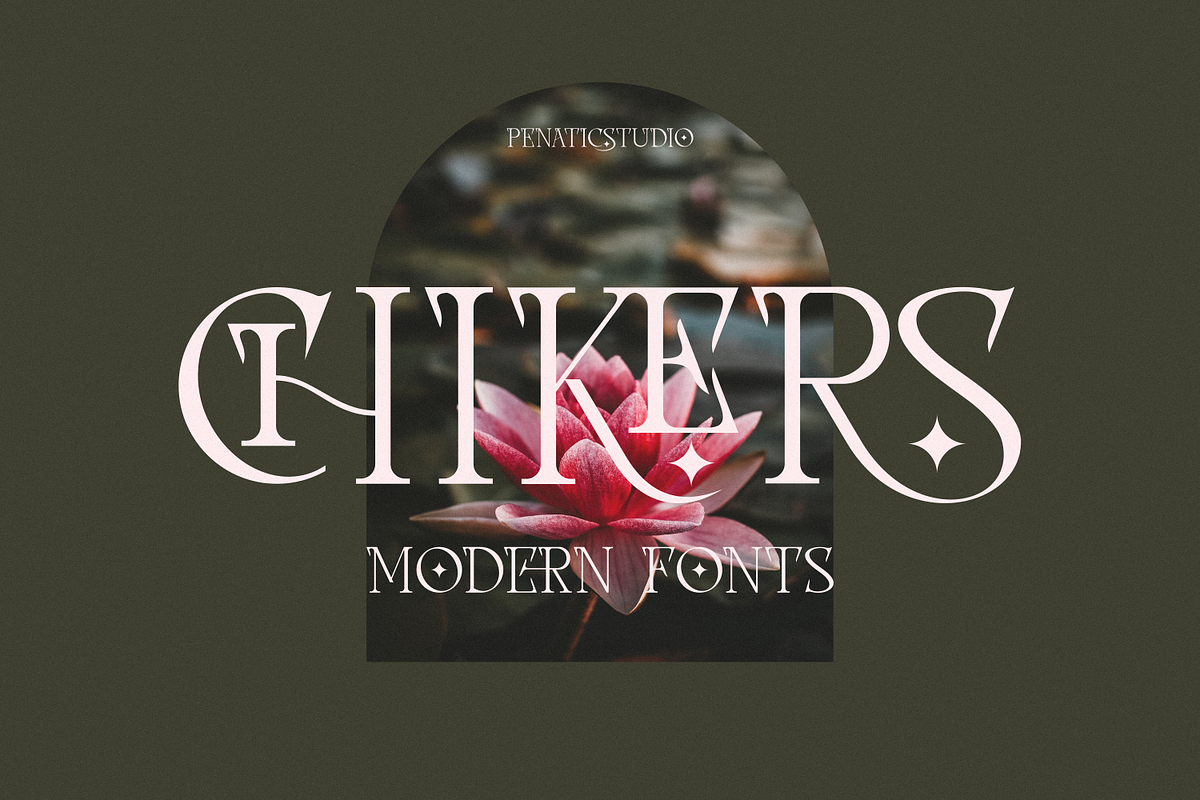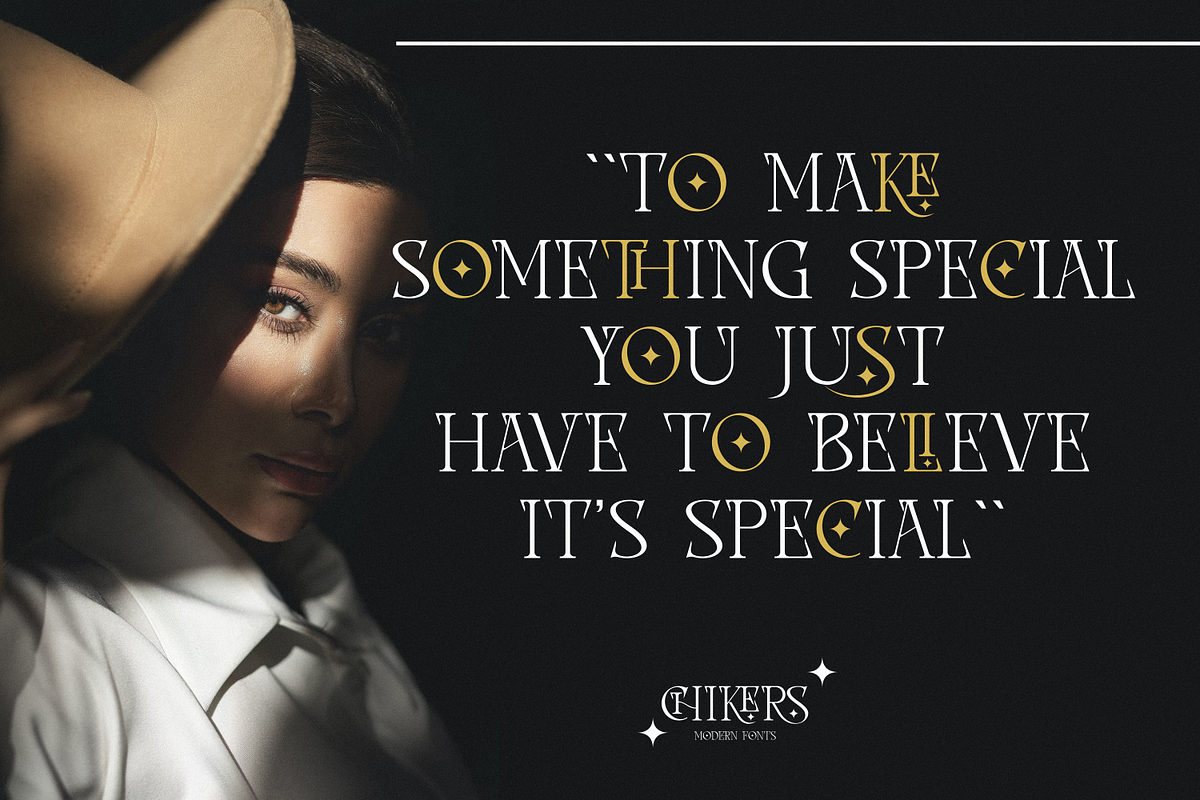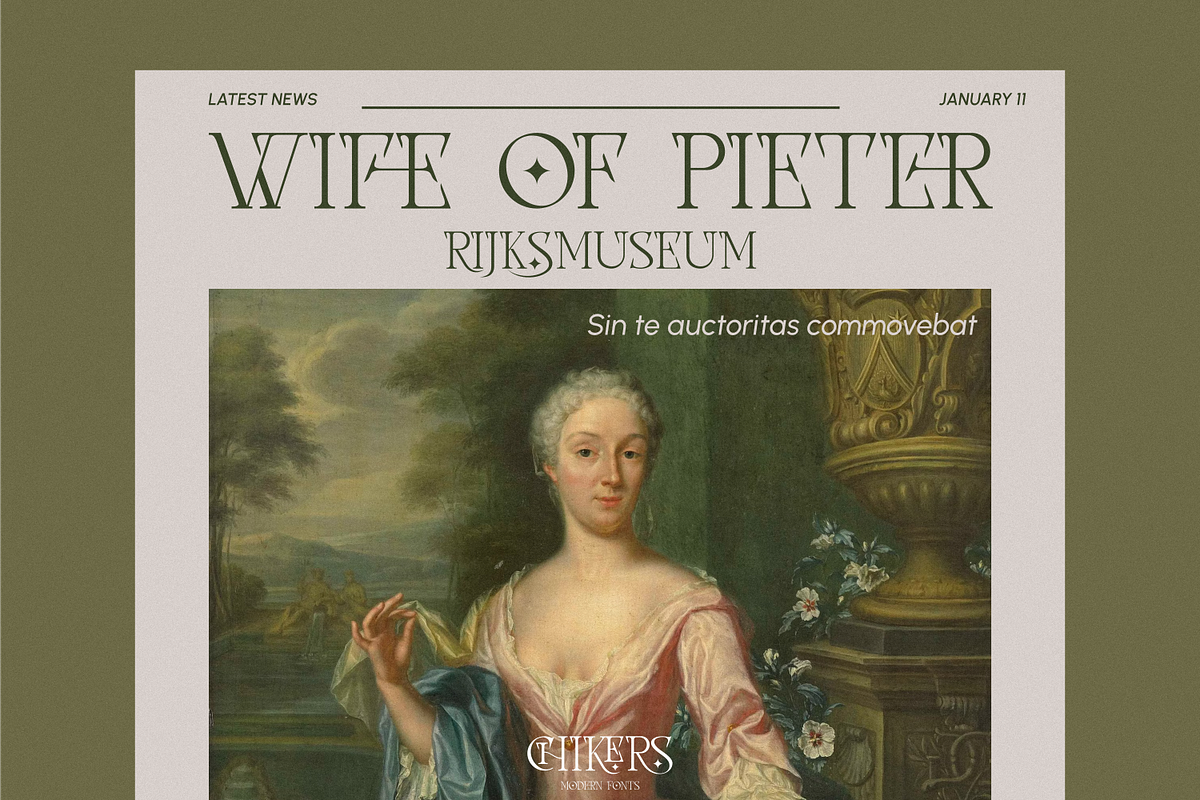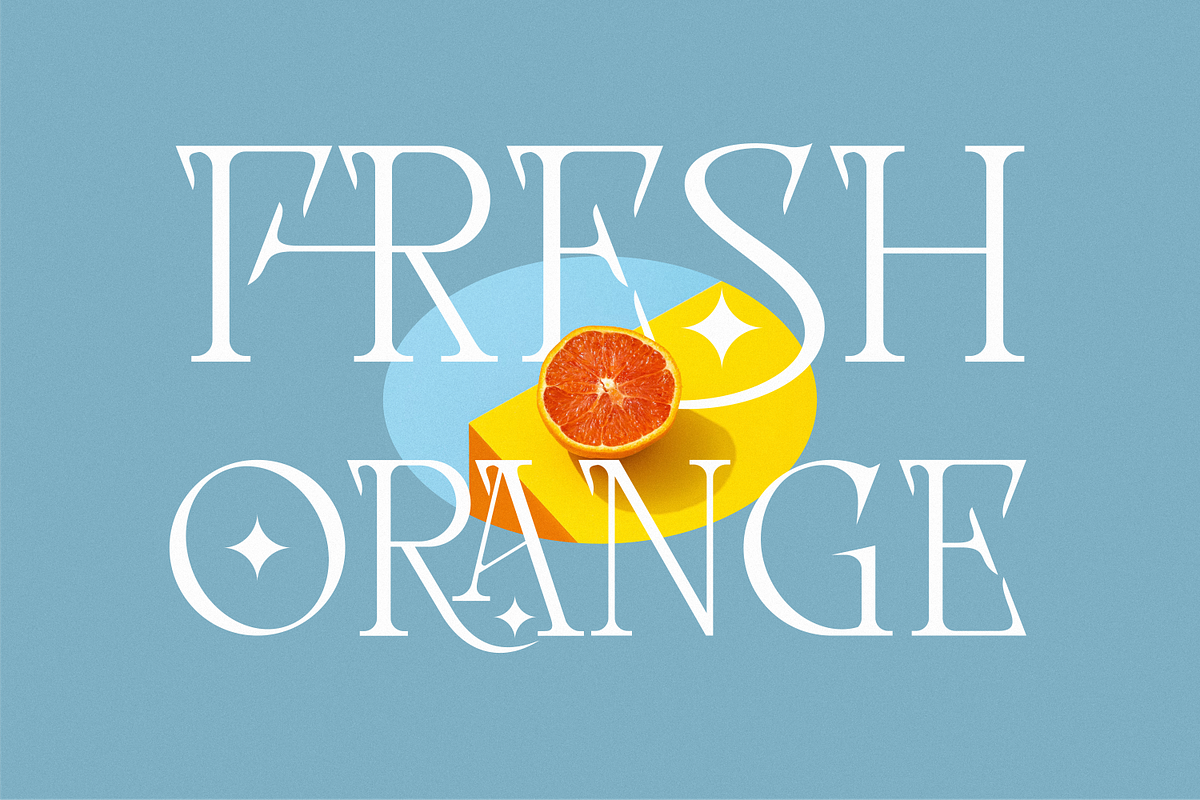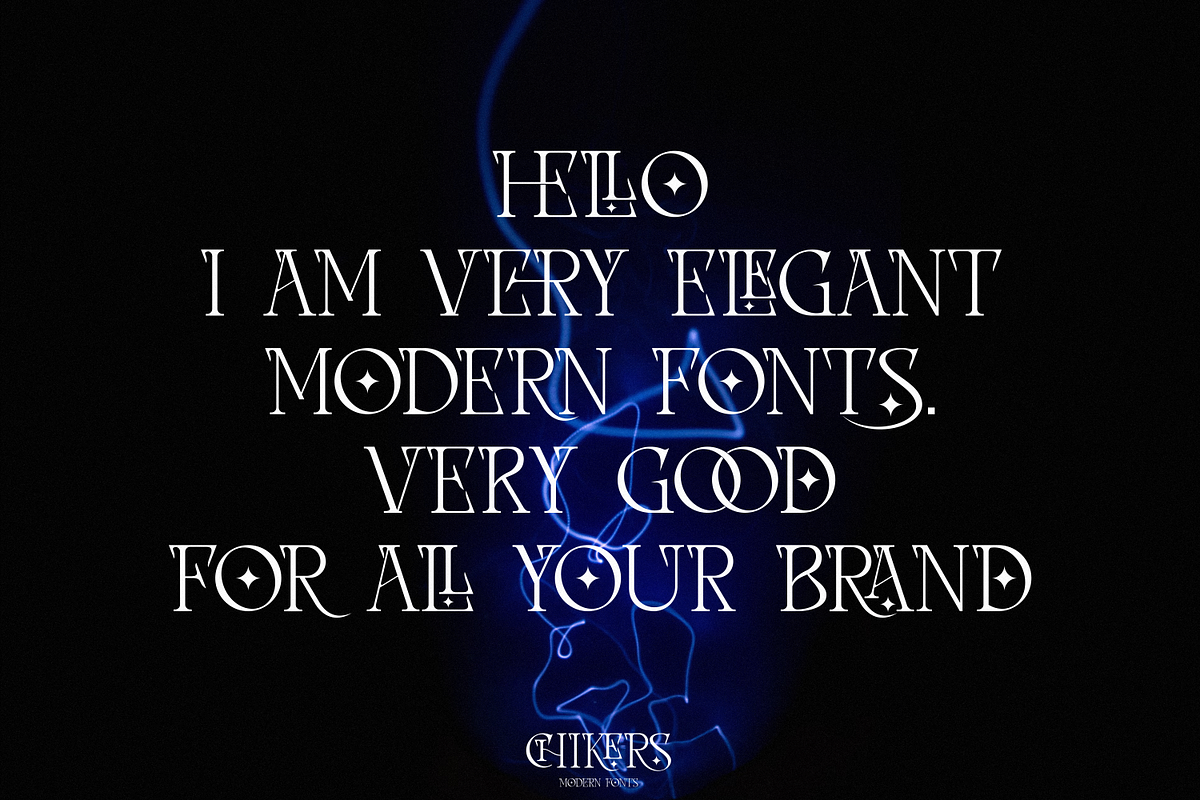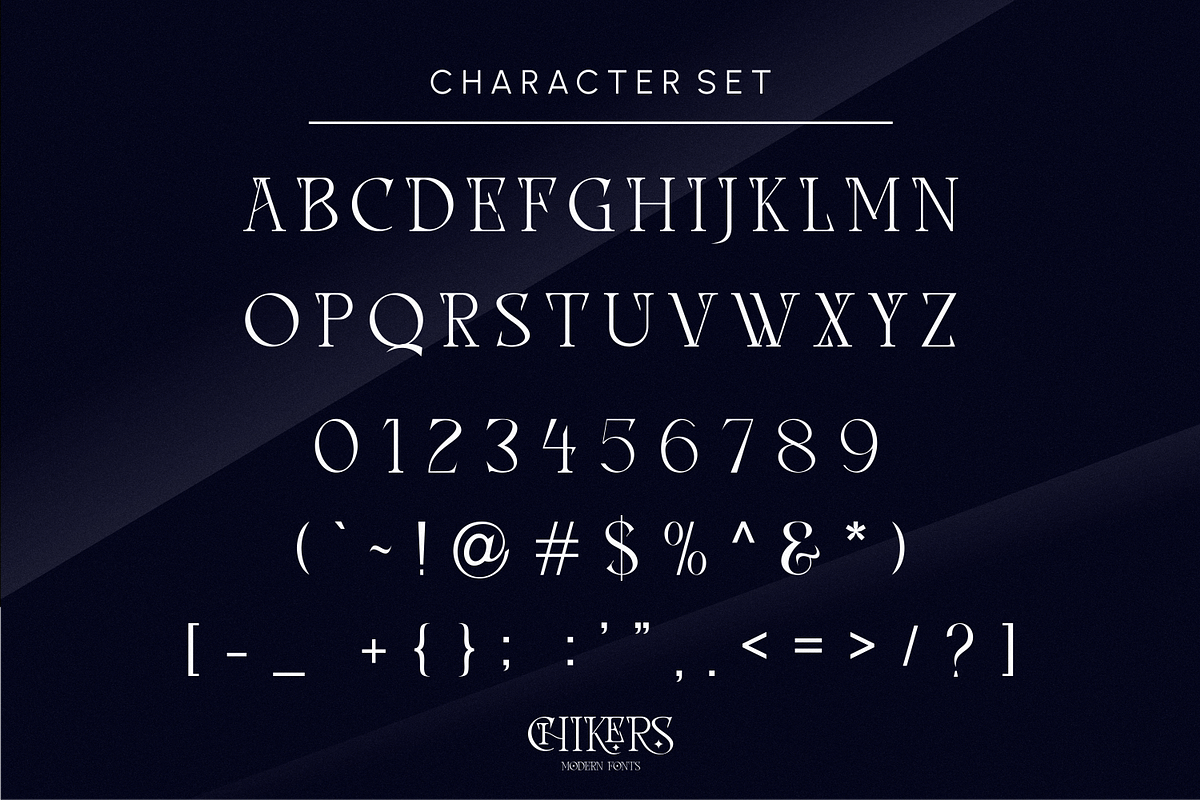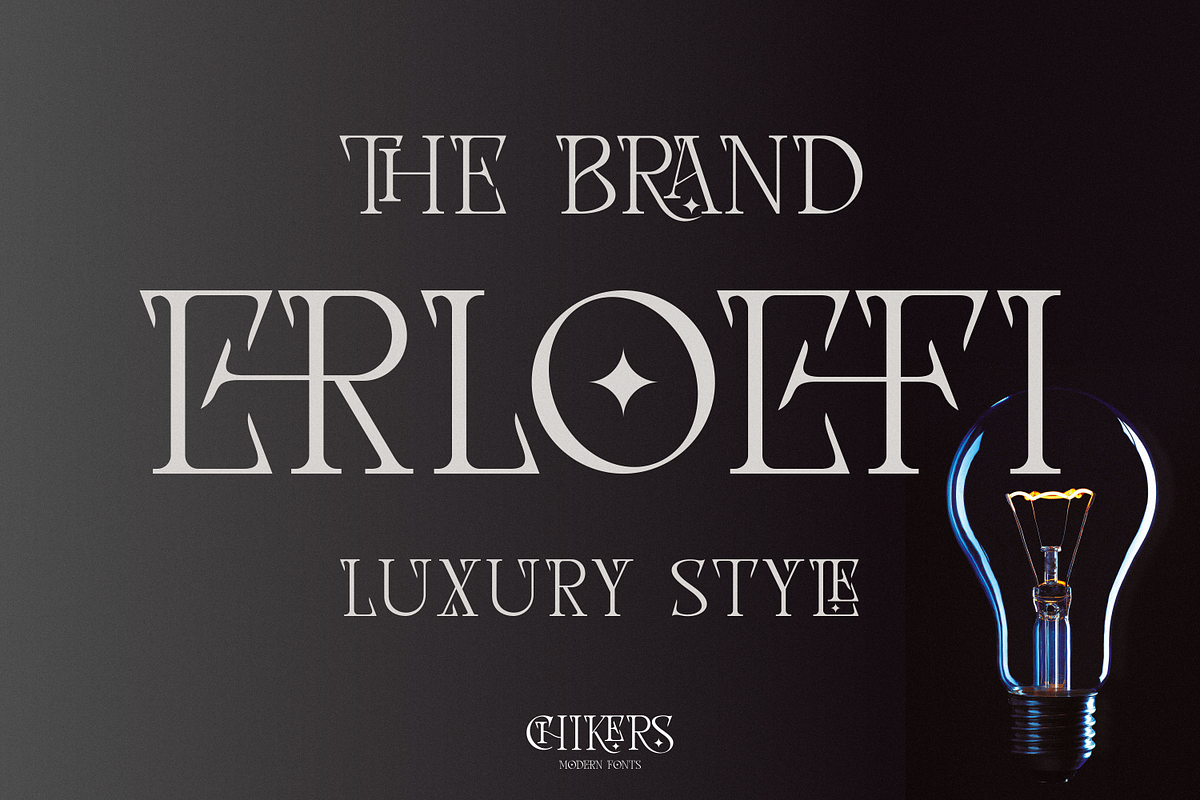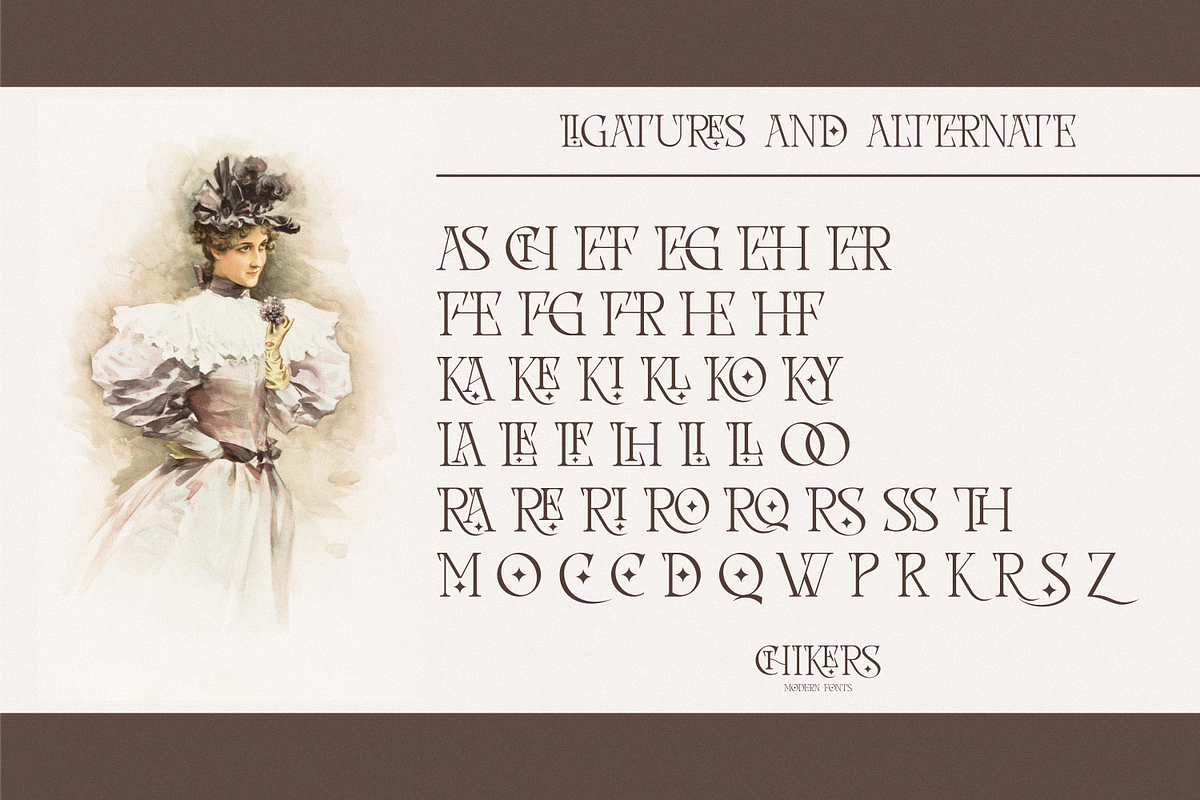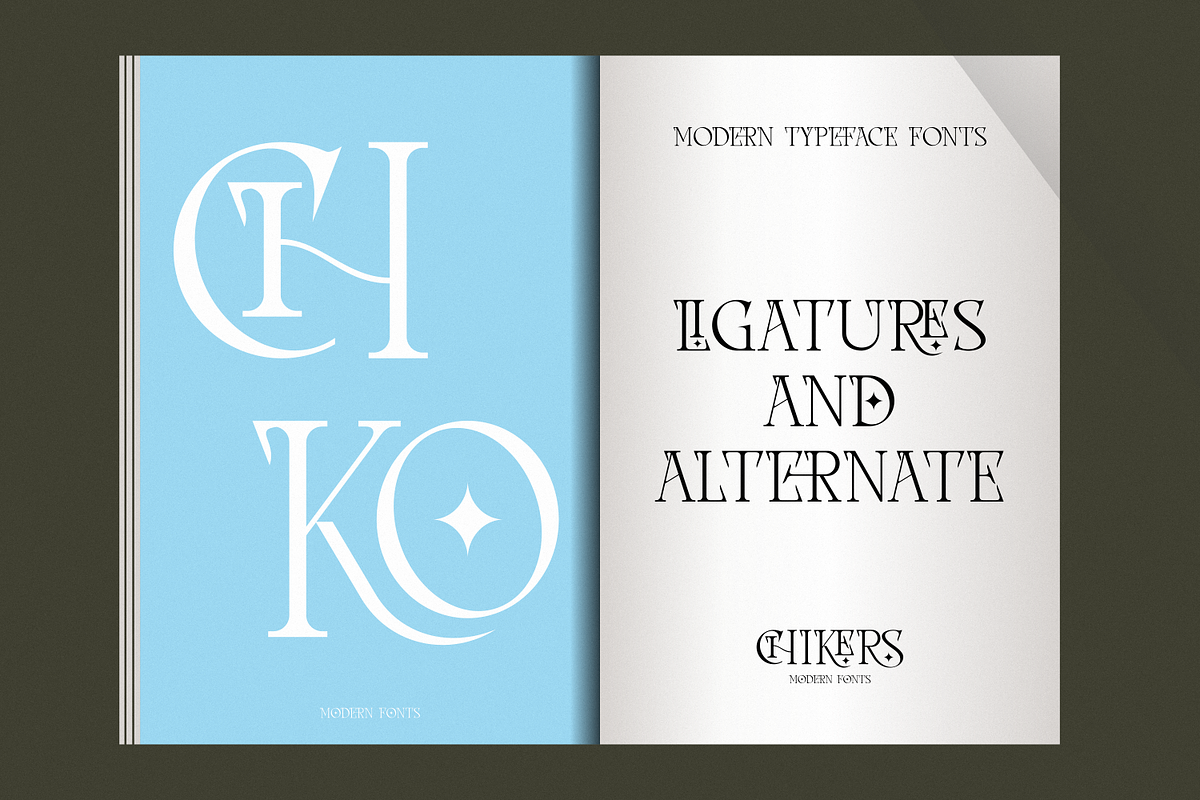
Chikers _ Modern Fonts
CHIKERS is a very classy modern serif font that uses multiple ligatures and alternations in the font. so that users can choose to make variations or designs on the letters easily. very suitable for use in various applications including brand identity, writing in magazine templates, design and others.
Alternate and ligatures
Unique letterforms